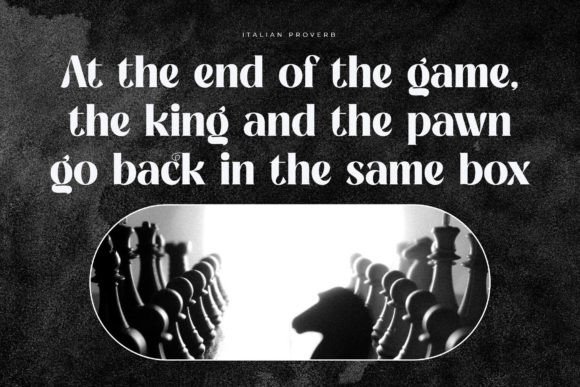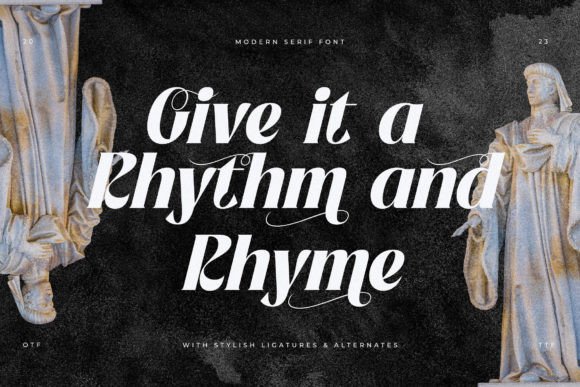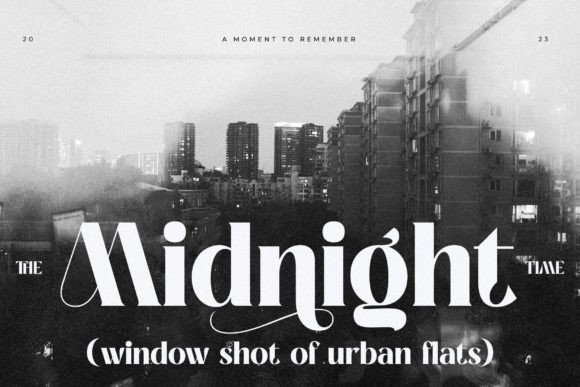
Introduction to Mercado Font
Have you ever stared at a beautifully crafted logo or a stunning movie title, wondering what makes it so captivating? For designers, it’s often the subtle details that elevate a design from ordinary to extraordinary. One such detail is the font used – and that’s where the Mercado Font comes in.
With its unique blend of modern and classic styles, the Mercado Font is a versatile design resource that can add a touch of elegance to any creative project. Whether you’re working on a luxury logo, a book title, or a magazine cover, this high-quality typeface is sure to make a lasting impression. And the best part? It’s available for free download, complete with a transparent background, making it a valuable addition to any designer’s toolkit.
Mercado Font: A High-Quality Design Resource
- Designed to be highly legible and visually appealing, making it suitable for various design projects, from print to digital media.
Honest Review: Mercado Font
I recently had the chance to work with the Mercado Font, and I must say, it’s been a game-changer for my design projects. This free download has been a lifesaver, offering a high-quality, versatile font that’s perfect for any creative project.
What works well: ✨ The font’s sleek, modern design is incredibly easy to use and integrates seamlessly into any layout. I’ve been particularly impressed with the transparent background, which allows for endless customization options. The font’s open-source nature also means it’s perfect for commercial use, making it a valuable addition to any design resource.
Here are some of the key features that I’ve enjoyed using:
- Sleek, modern design
- High-quality, professional-looking results
⚠️ My only criticism is that the font may not be suitable for all design projects. The modern design can sometimes come across as too trendy, which may not be ideal for more conservative or traditional projects.
Overall, I’m thoroughly impressed with the Mercado Font. Its high-quality design, transparent background, and free download make it a must-have for any designer’s toolkit. Whether you’re working on a creative project or need a versatile font for everyday use, Mercado Font is an excellent choice.
Mercado Font is ideal for various creative projects, including:
- Branding
- Print design
Is Mercado Font suitable for use on a transparent background?
Yes, Mercado Font has a transparent background, making it perfect for use on transparent or semi-transparent backgrounds. The font’s design is carefully crafted to ensure that it looks great on a variety of backgrounds, from solid colors to intricate designs.